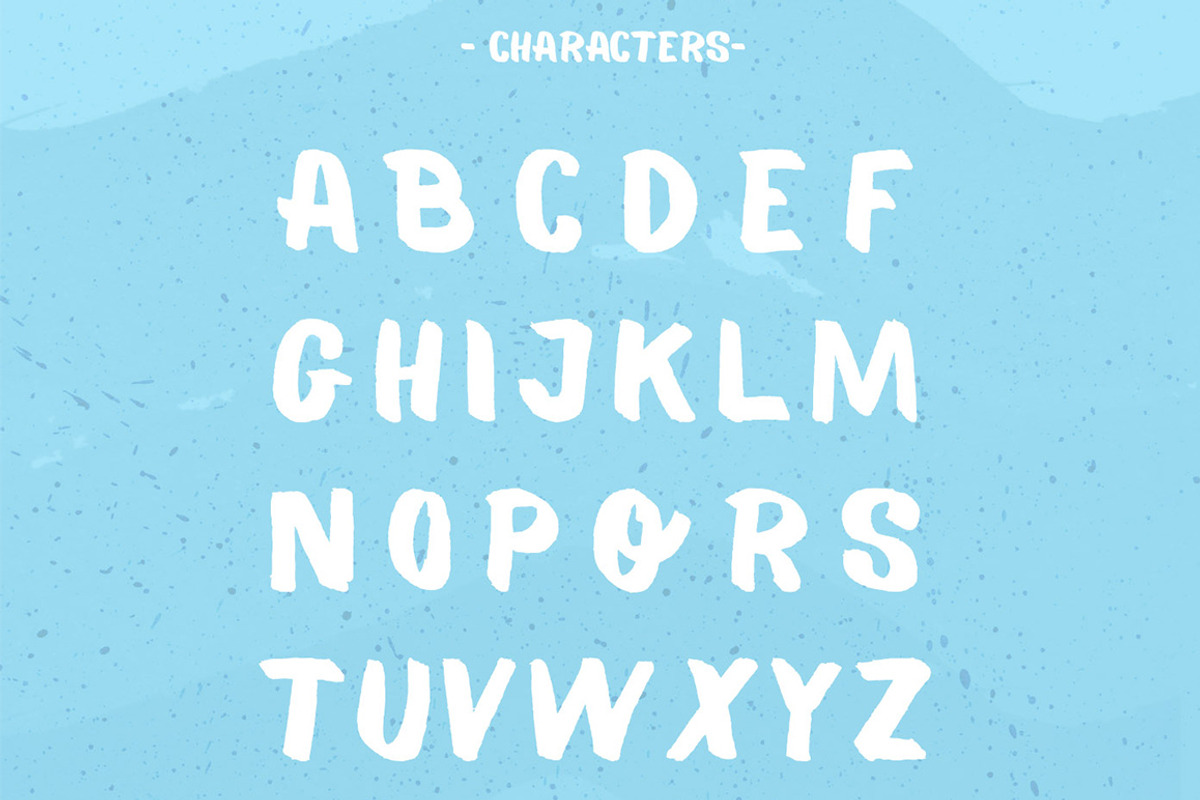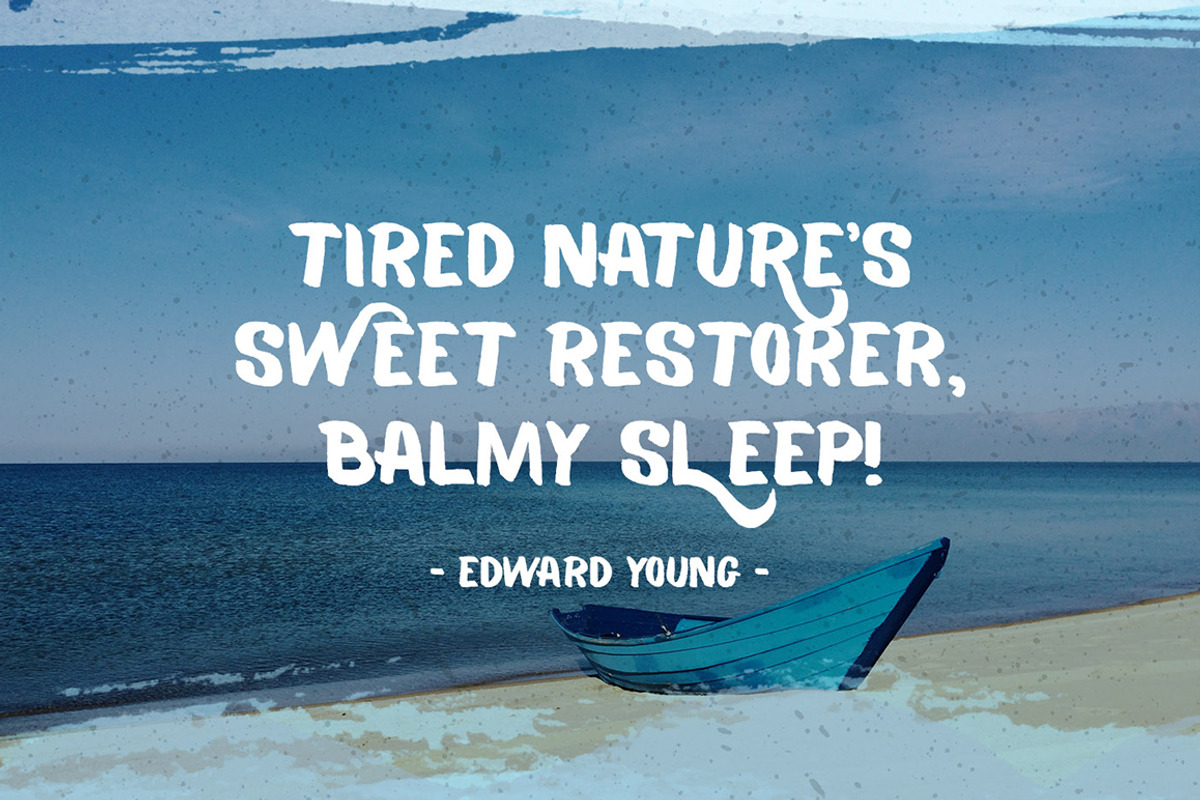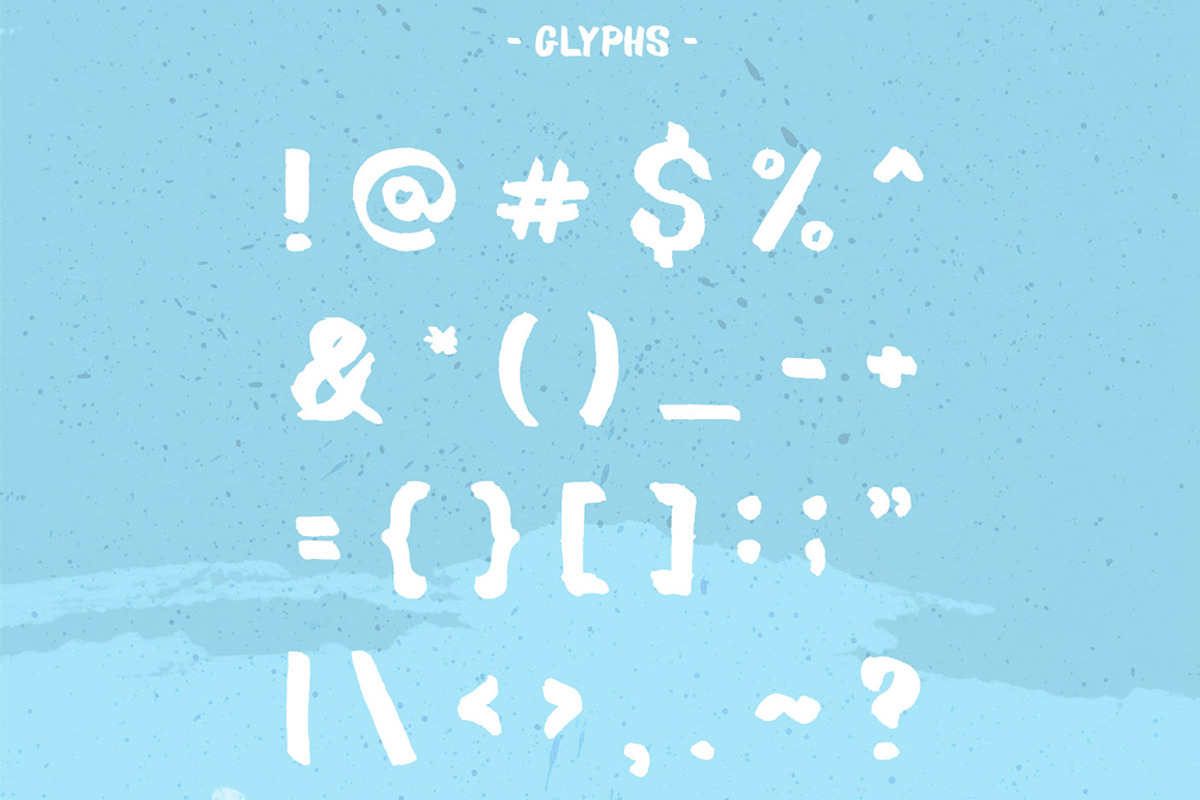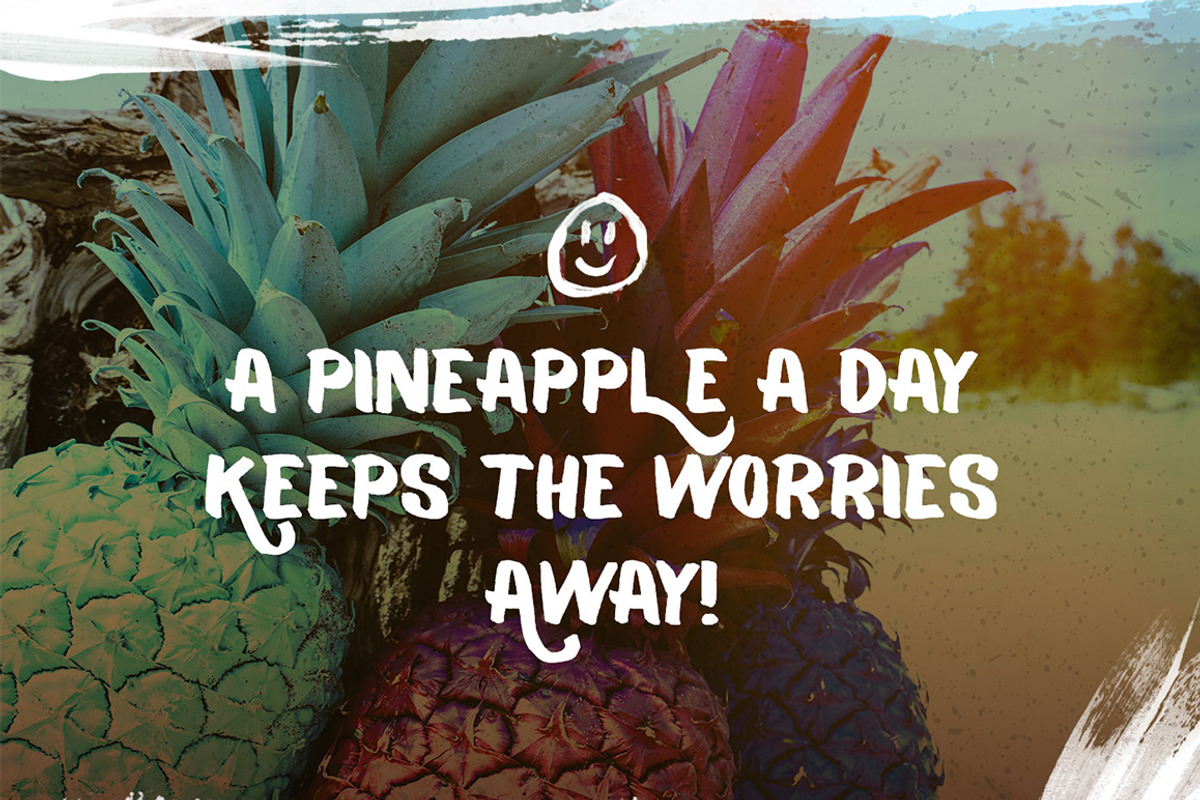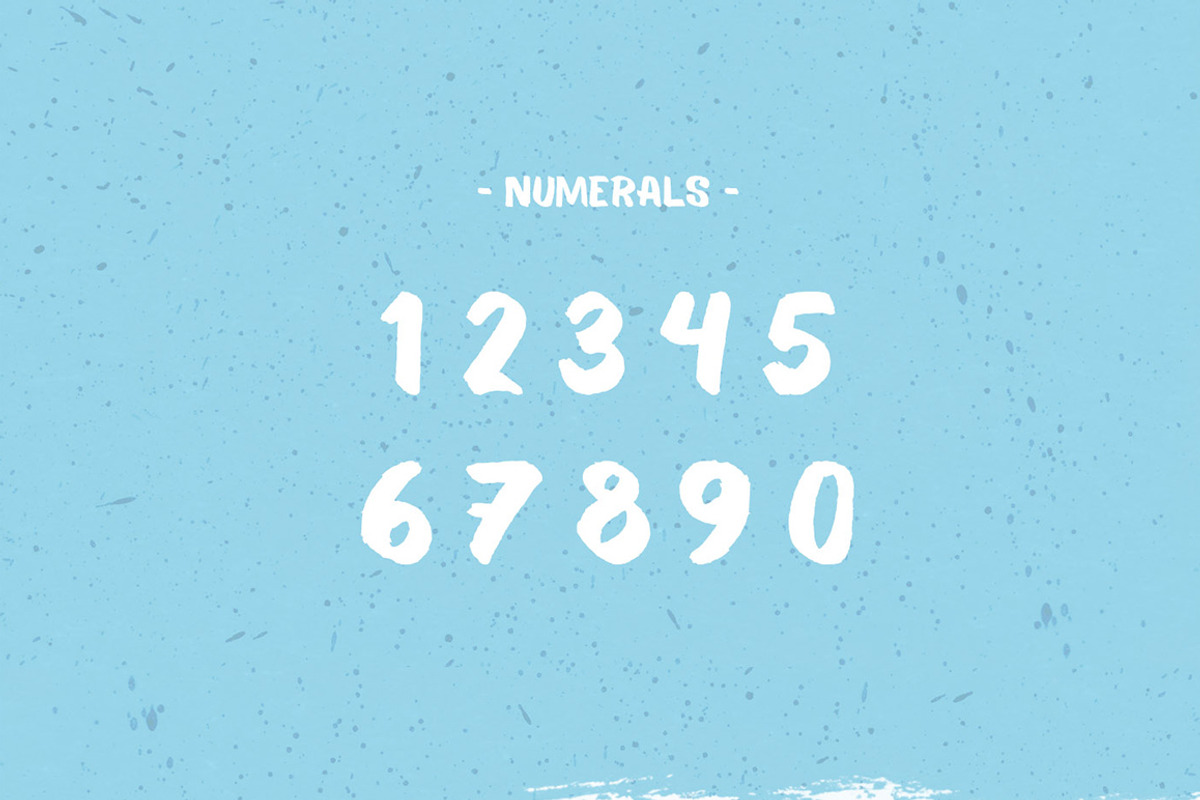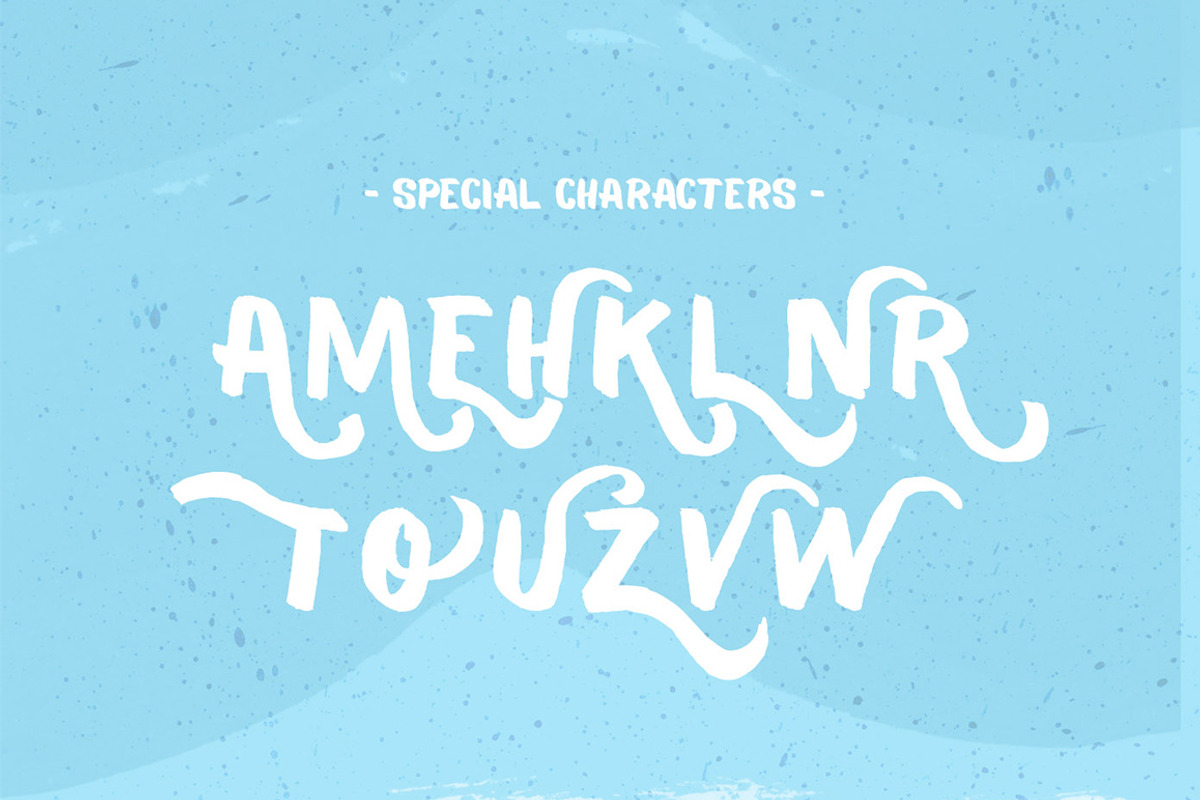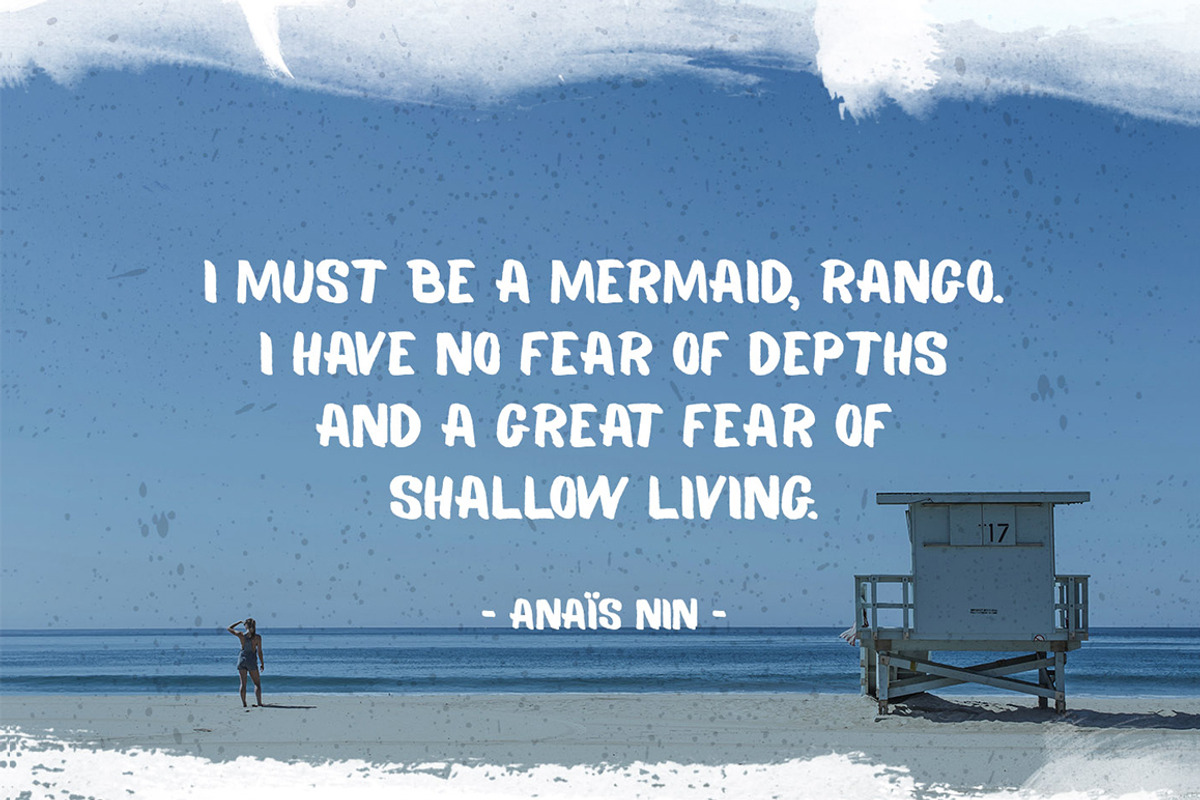
Balmy Brush Font
Balmy Brush Font by BorisG is a font selected for branding, posters, packaging, typography.
- The font comes with over 400 characters, with ligatures and special characters for posters, logos, or everything handmade!
- Multilingual support includes Russian, Cyrillic, Central European, Turkish etc.
Why Balmy Brush Font is worth a look
Balmy Brush Font by BorisG fits naturally into Branding, posters, packaging, typography.